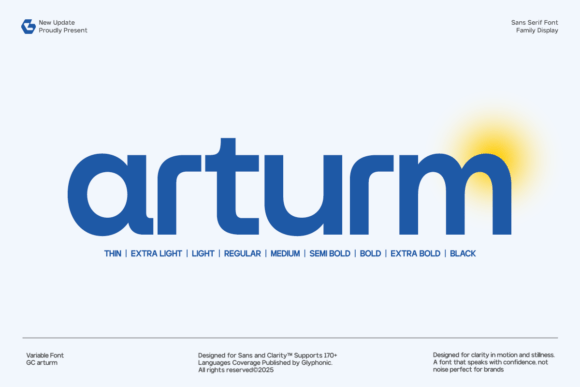
Gc Arturm: A Modern Variable Sans for Web Design
There’s something about a hero section that sets the tone for an entire website. I was testing Gc Arturm on a boutique online store layout, and as soon as I applied it to the main headline, I knew this font had potential. It wasn’t just about aesthetics—it was how it felt, how it read, and how it responded across different screen sizes.
What Makes Gc Arturm Stand Out
Gc Arturm is a modern variable sans serif typeface built with precision and balance. As a web designer, I appreciate fonts that offer flexibility without sacrificing readability. What caught my attention was its ability to shift between weights and styles seamlessly—ideal for creating visual hierarchy in a responsive design. It feels clean yet expressive, making it perfect for headings, banners, or any display text that needs to stand out.
Its character set is well-crafted, with subtle curves and sharp edges that work together to create a modern, professional look. Whether placed over an image banner or used in a call-to-action button, Gc Arturm maintains clarity even at smaller sizes. That kind of versatility is rare in display fonts, especially those designed for digital use.
Testing Gc Arturm in Real Layouts
I started by using Gc Arturm in a hero section for a creative portfolio site. The font looked great over a full-screen background image, adding a layer of sophistication without overwhelming the visuals. On mobile, it scaled down nicely, keeping the message clear and legible. It wasn’t too bold, nor too delicate—it struck that perfect middle ground that makes users pause and read.
Next, I tested it in a product landing page. I paired it with a clean sans serif body font for the supporting text. The contrast worked well, guiding the eye from the headline to the details below. Even when used in a small CTA button, Gc Arturm didn’t lose its presence. It had enough weight to feel intentional, but not so much that it became distracting.
I also tried it in a blog header, where it helped establish a consistent brand identity. Its neutral yet modern appeal made it suitable for a variety of industries—from fashion to tech. It didn’t scream “designer” but still carried enough personality to make the content feel curated and professional.
When to Use Gc Arturm and When Not To
Gc Arturm shines in short phrases, headlines, and decorative accents. It works beautifully for logo text, section headings, and promotional banners. However, it may not be the best choice for long-form content or dense paragraphs. Its design leans more towards display use rather than extended reading, which means it should be reserved for elements that need emphasis.
For accessibility-focused projects or dashboards with lots of form fields, it might be better to pair it with a simpler, more readable sans serif for body copy. That way, you can maintain a cohesive look while ensuring usability across all parts of the site.
Font Pairing and Practical Tips
One of the best things about Gc Arturm is how well it pairs with other fonts. For a modern editorial feel, I found it complemented a simple serif font like Georgia or Merriweather. If I wanted a more playful vibe, pairing it with a handwritten script font added a nice touch of creativity without clashing.
It’s also worth noting that Gc Arturm supports multiple weights and has good multilingual support. This makes it ideal for international brands or sites that cater to diverse audiences. Before using it commercially, I always double-check the licensing terms to ensure it meets the project requirements.
When implementing it on a live site, I recommend testing it across different devices and screen sizes. While it performs well in most scenarios, it’s important to ensure it doesn’t break the layout or cause unexpected rendering issues. Using webfont formats and optimizing loading times will help keep the user experience smooth and fast.
Overall, Gc Arturm has become a go-to choice for me when designing websites that need a modern, professional look without compromising on readability or responsiveness. It’s a font that feels both polished and approachable, making it a valuable addition to any designer’s toolkit.